8 Best Fun Summer Fonts to Add Cuteness to Your Design
Fun Summer Fonts
If you are a new graphic designer and working on a summer project, then you need to know how to create an amazing typography design. Typically, summer tends to be a cheerful and fun atmosphere. Well, you need to choose the right summer fonts to support your design. The choice of font will affect and evoke the emotions of the audience.
Font designs for summer projects usually use beach elements, namely gentle breezes, beach sand, rolling waves, and other summer-related things. In order to give an artistic and cute touch to your design work, you can have a look at a collection of attractive fonts from Creatype Studio.
8 Fun Summer Fonts Recommendations
Let’s try using the 8 types of fonts below from Creatype Studio to improve your design!
1. Hello Sunny Fun & Bold Typeface
Hello Sunny Fun & Bold Typeface looks bold with a handwriting-like concept. Writing text using this font will look cute because each side of the letter has rounded corners, so it looks fat. You can use this font for children’s or family theme designs because it can bring an element of joy.
The design of each letter is simple enough to make it look clear. This will certainly increase legibility so it can convey information properly. To use this cute font, you need to pay $20.
2. Summer Beach
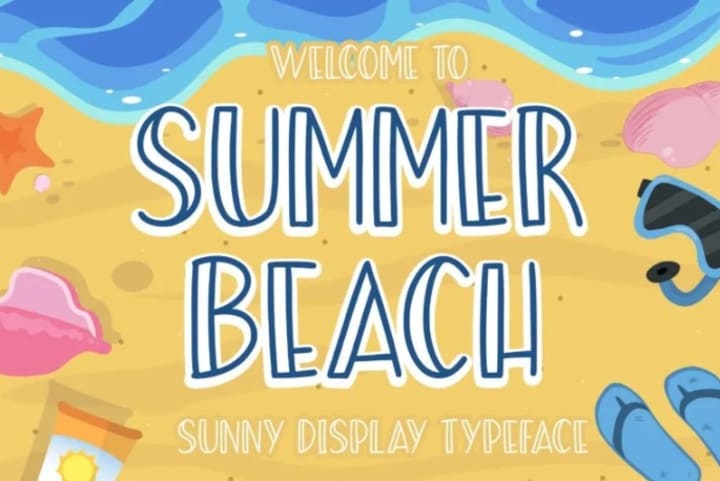
Next summer font inspiration that presents a simple look but will take your designs to the next level is Summer Beach. This font choice is suitable for those of you who like the look of handwritten typography. Besides having a fun font design, the Summer Beach font also brings a warm feel to summer project designs.
The letters look neat and not too bold. One part of the letters uses double lines so as to give a unique touch. You don’t have to worry about spending a lot of money to buy this fun font, as it costs around $20.
3. Crully
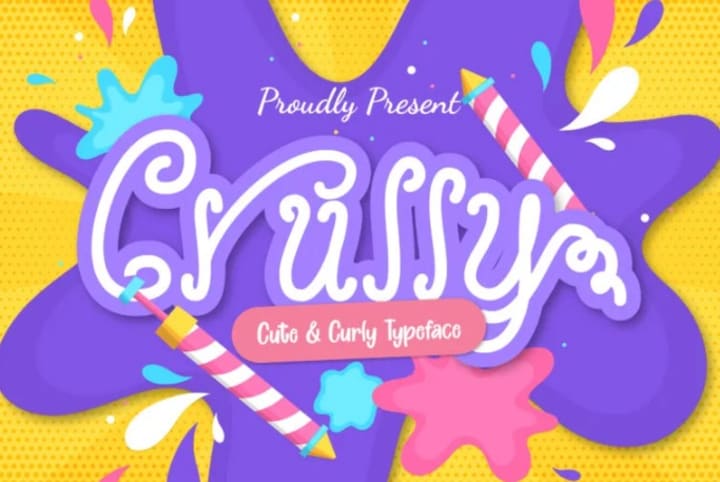
To make a design that creates a strong impression of excitement, you can choose Crully. The design of each letter looks wavy, making it suitable for beach event designs. The curly edges of the letters also make it look more unique.
Even though it looks more complicated than the two previous types of fonts, Crully still has pretty good legibility. Curly and wavy details add aesthetics and artistry to the typography
4. After Sunset
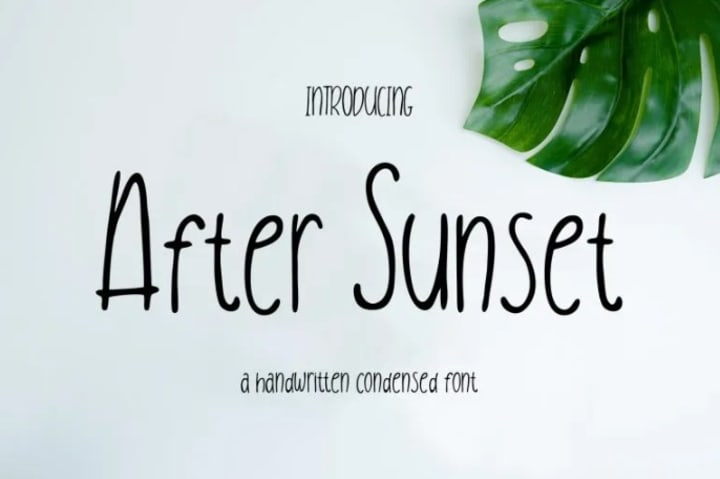
A summer font design with a simple and neat handwriting concept that you should use to beautify your typography, namely After Sunset. The shape of the letters is thinner, and the design extends upwards.
If you use lowercase letters, the height of the upper and lower bounds will look even. After sunset font also gives typography a unique and cheerful touch.
5. Sunday Morning
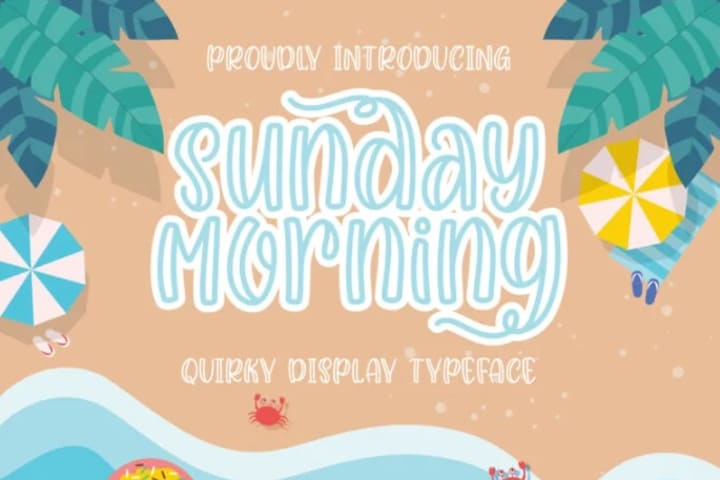
If you want to use a bold font but look simpler, then you can consider the Sunday Morning font. The appearance of this font is somewhat similar to Summer Beach. Summer Beach only uses double lines on one side of the letters, while Sunday Morning uses double lines on all parts.
In certain letters such as a, b, h, k, l, r, g, j, y, and p provide alternative design choices. The ends of the letters that extend like plant vines present a sweet and pleasant appearance.
6. Fruiti Juicy
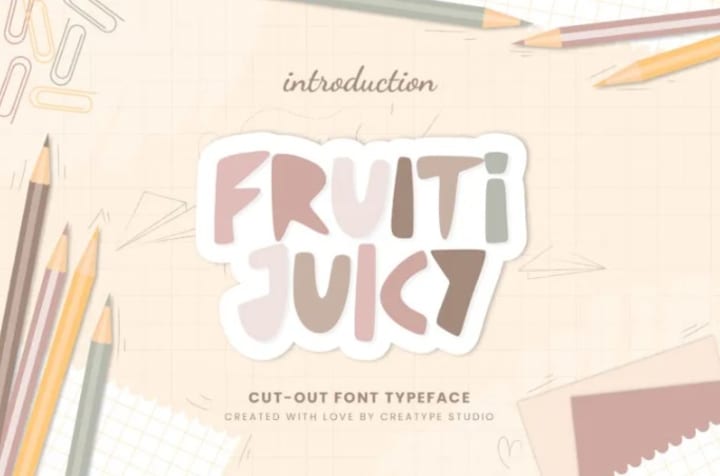
Another summer font that brings a fun vibe to typographic designs is Fruiti Juicy. The appearance of each letter is bold, and the angles of the curves appear sharp. In order to produce a relevant design, collaborate the font with typical summer colors.
7. Wigglye
if you got a project to make a happy summer event design, use the Wigglye Font with a cute look. The design is like handwriting and added strokes on the outside of the letters.
8. Kelombang
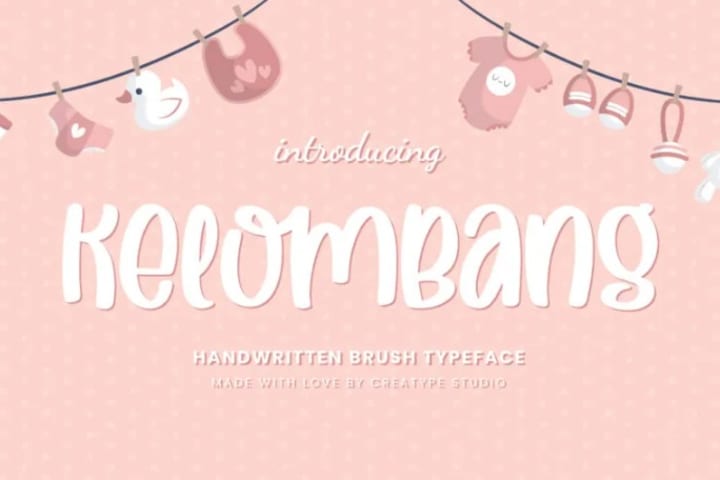
Are you looking for a font with a sweet and cute look? Try using the Kelombang font. The letter design on the Kelombang font is suitable for formal projects but with a casual look. The price of this font is a little more expensive than the previous recommendation, which is $ 23.
What Is Your Summer Fonts Choice?
Those are 8 recommendations for cute summer fonts from Creatype Studio that you can use to present a typography design that is more than mediocre. The price range for the fonts offered is quite affordable, just starting from $ 20 – $ 23. Are you interested?